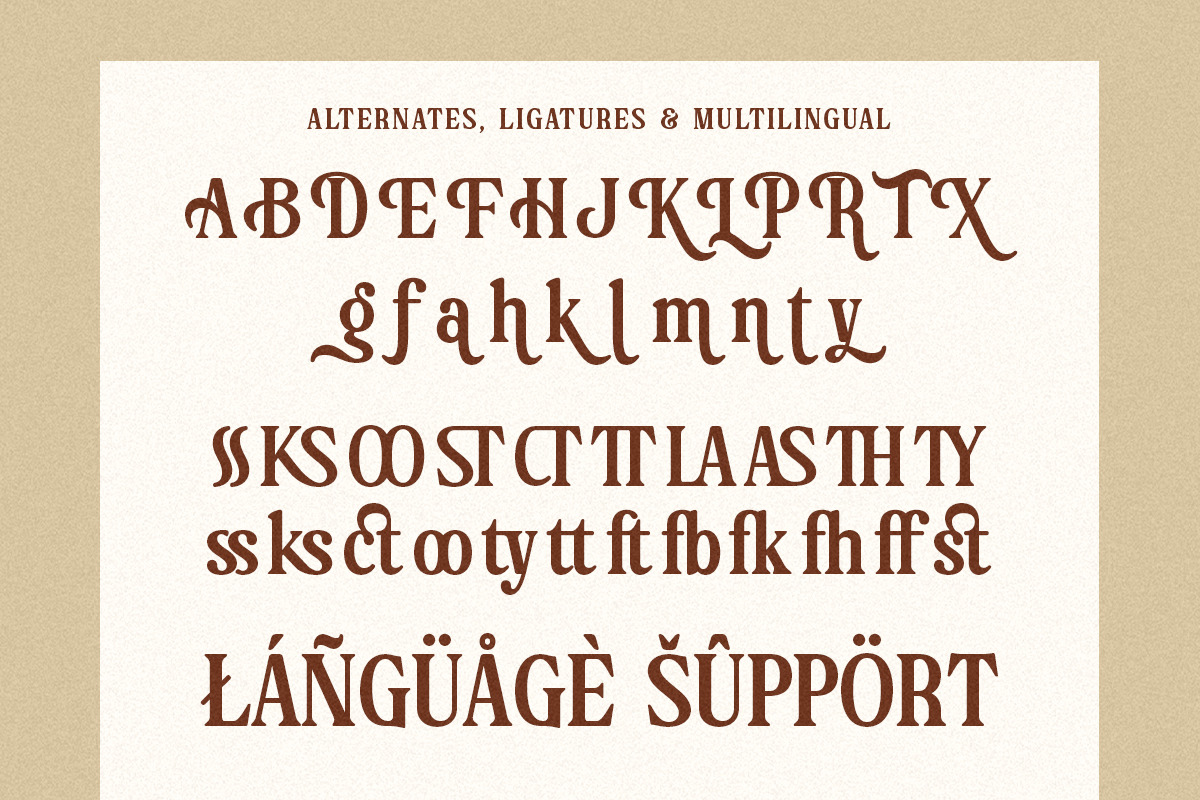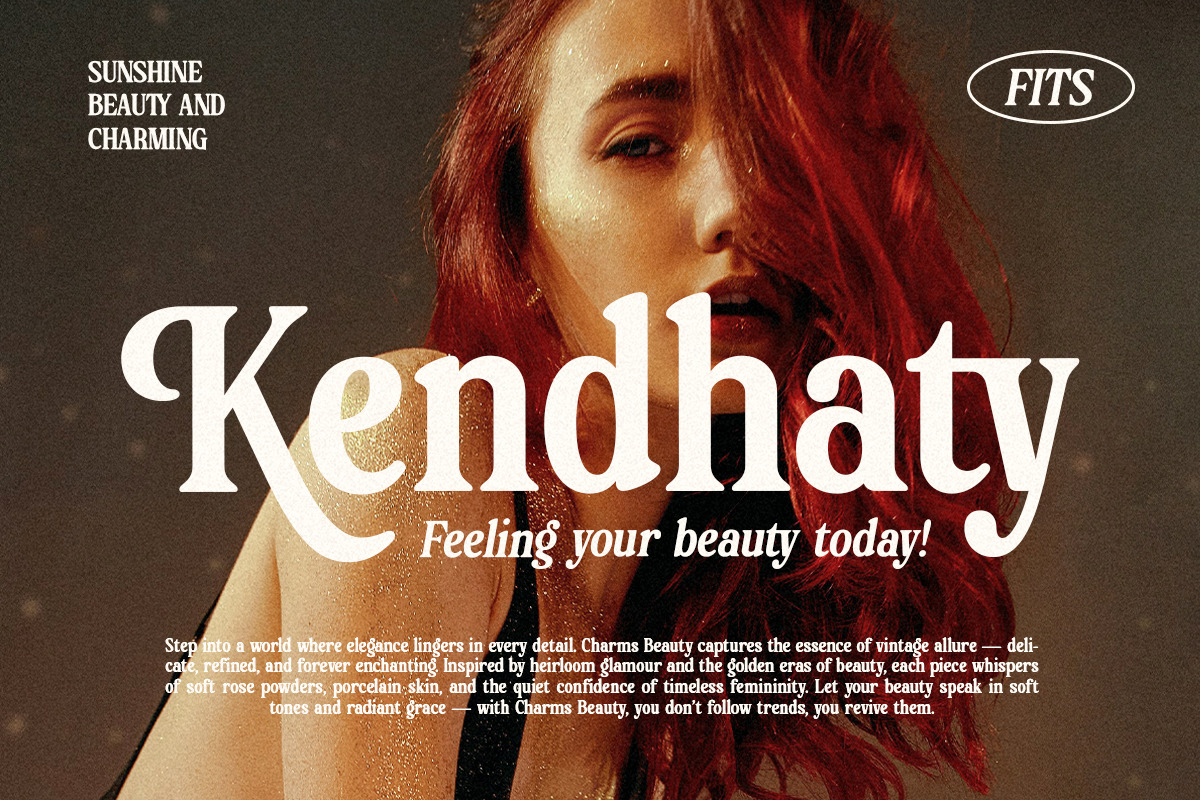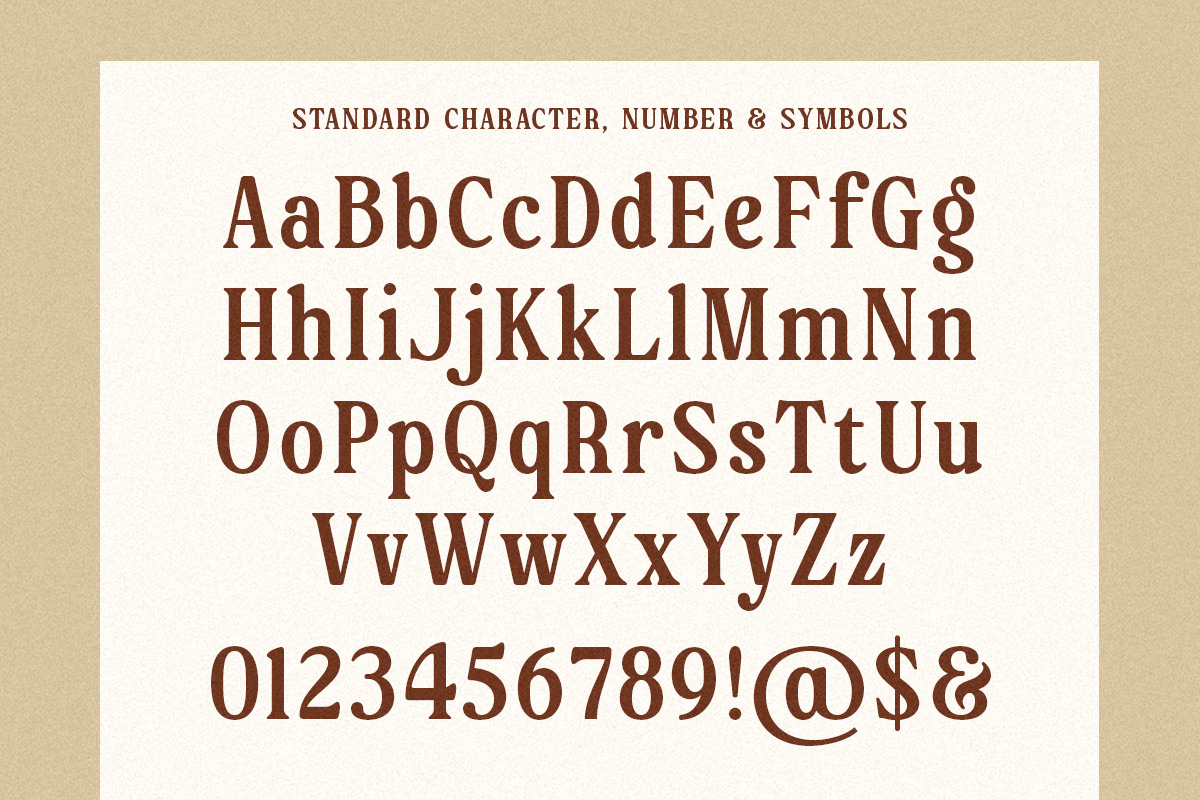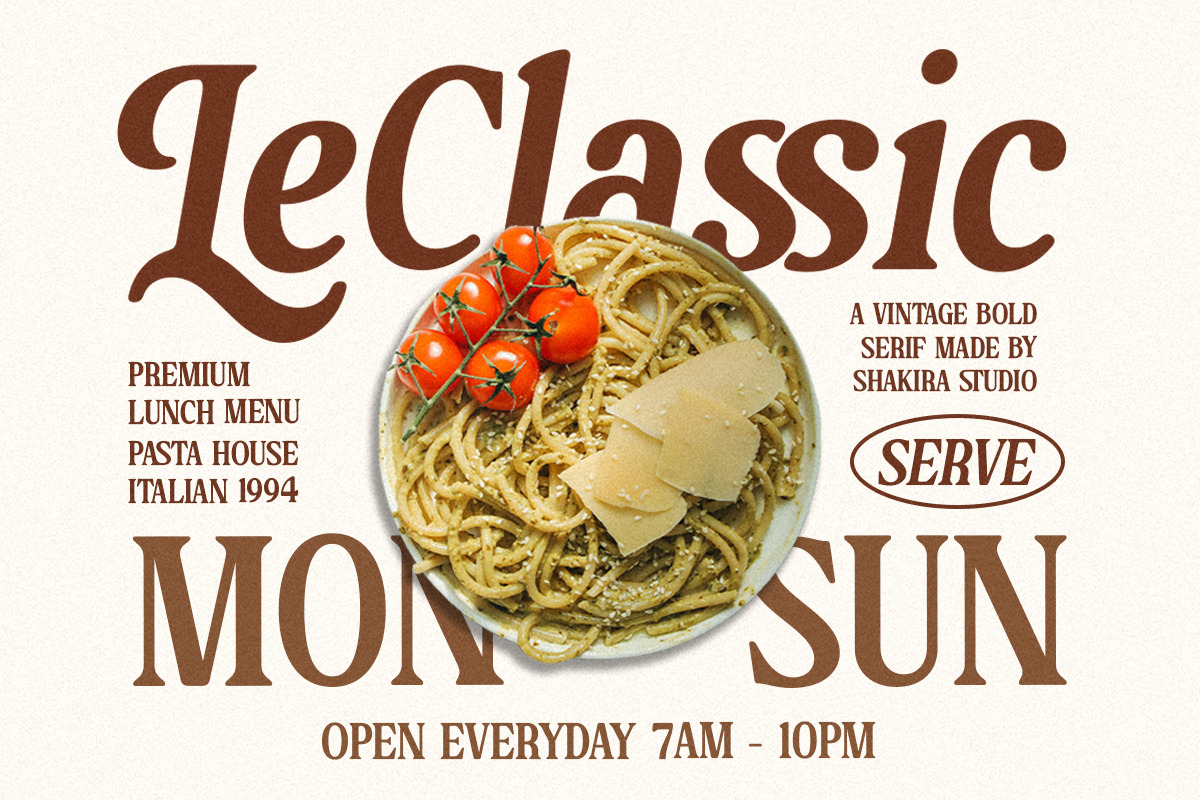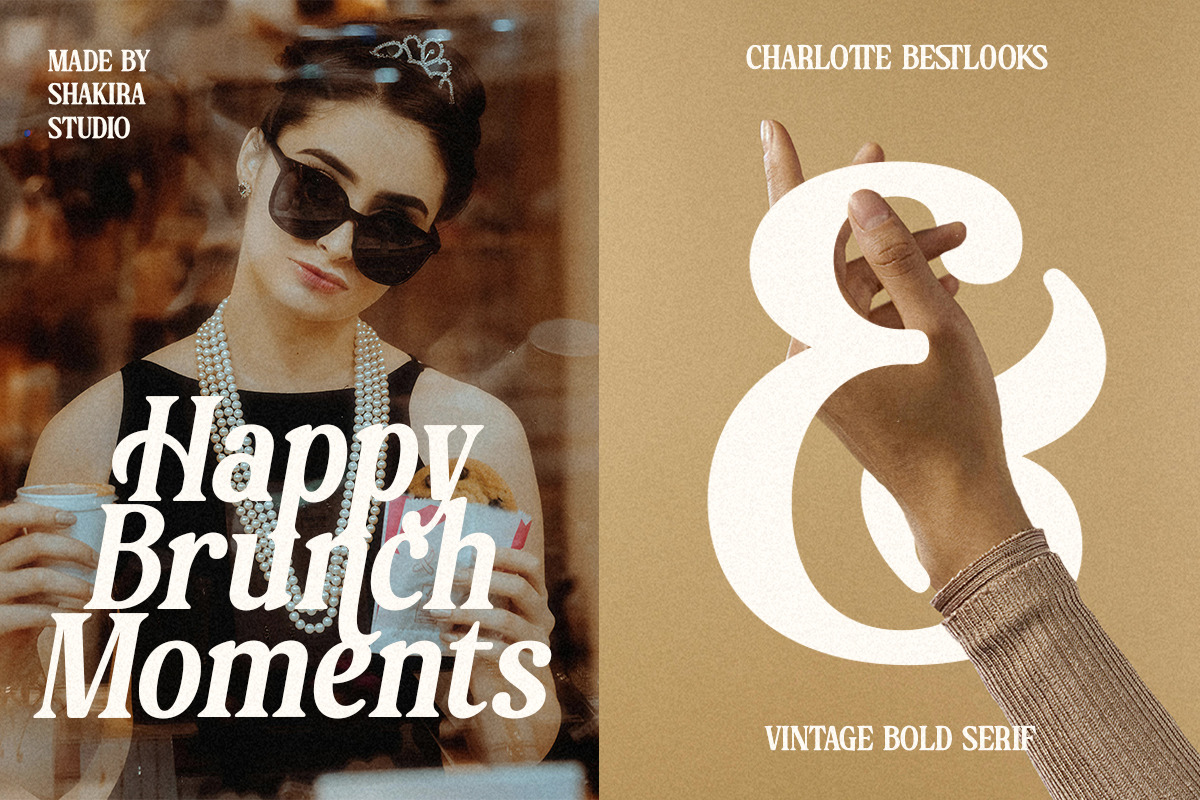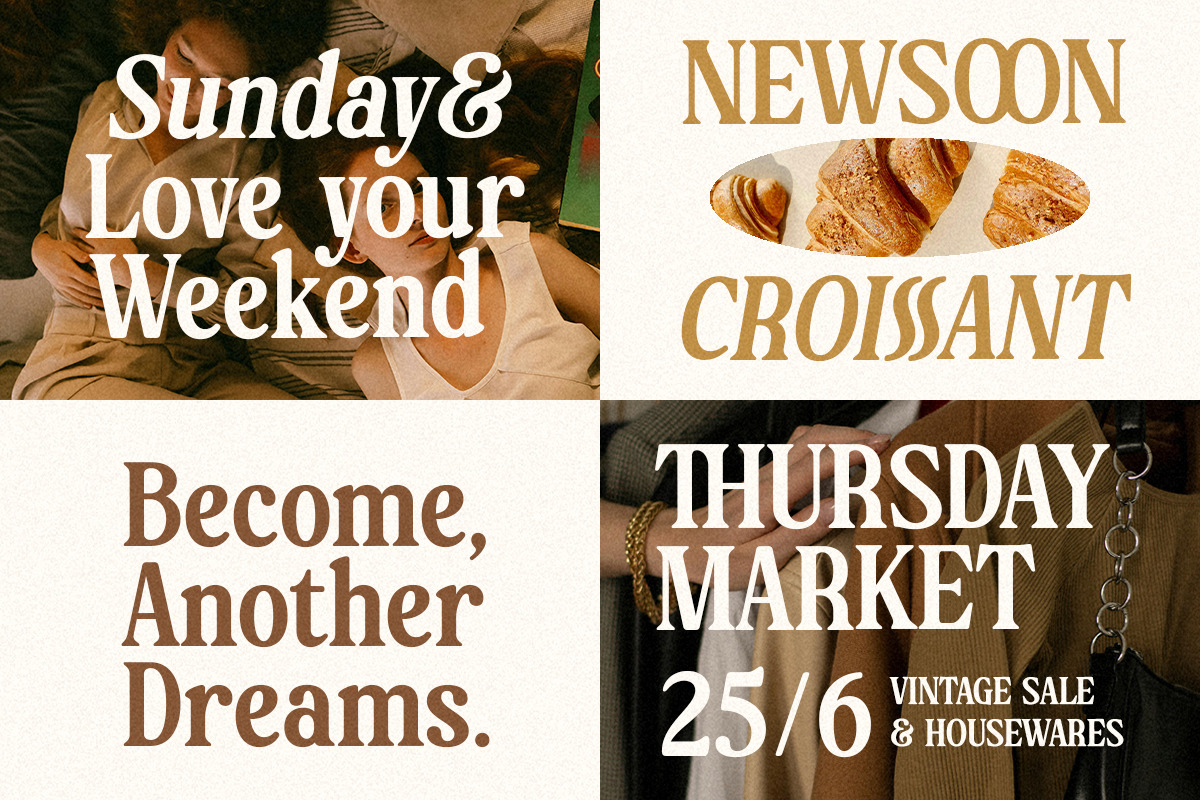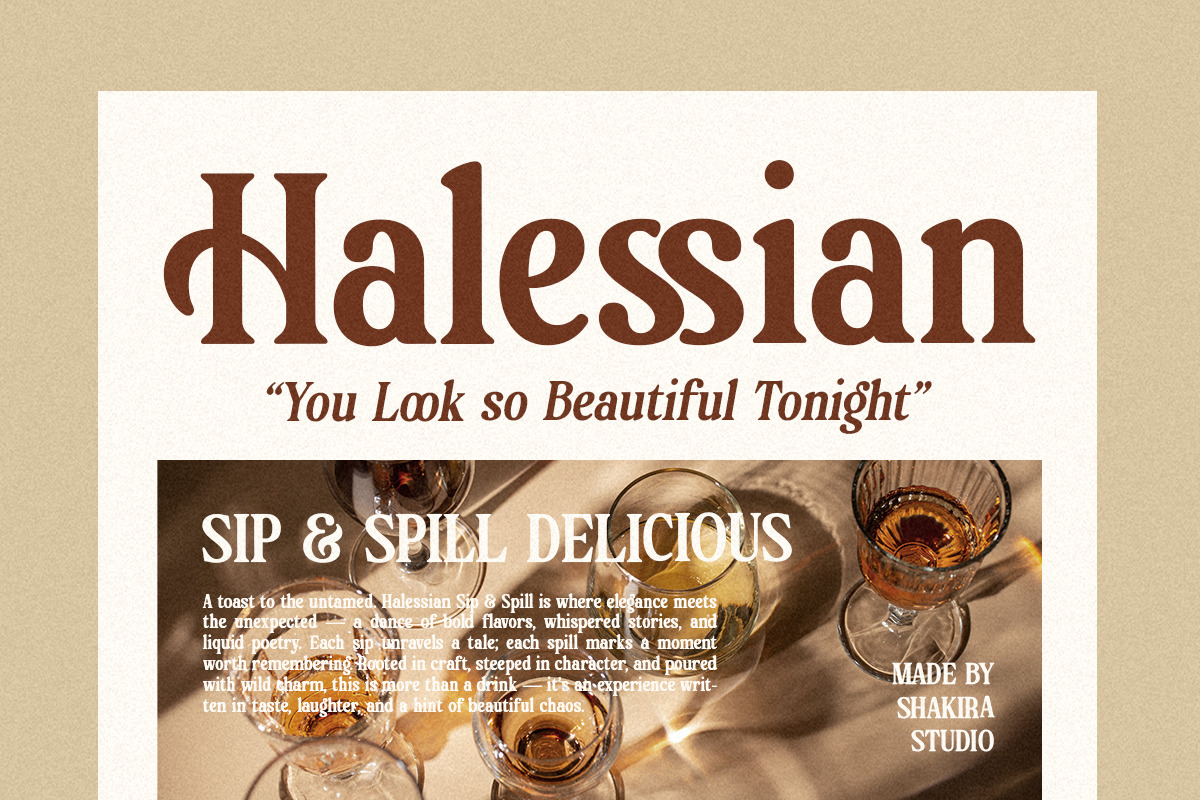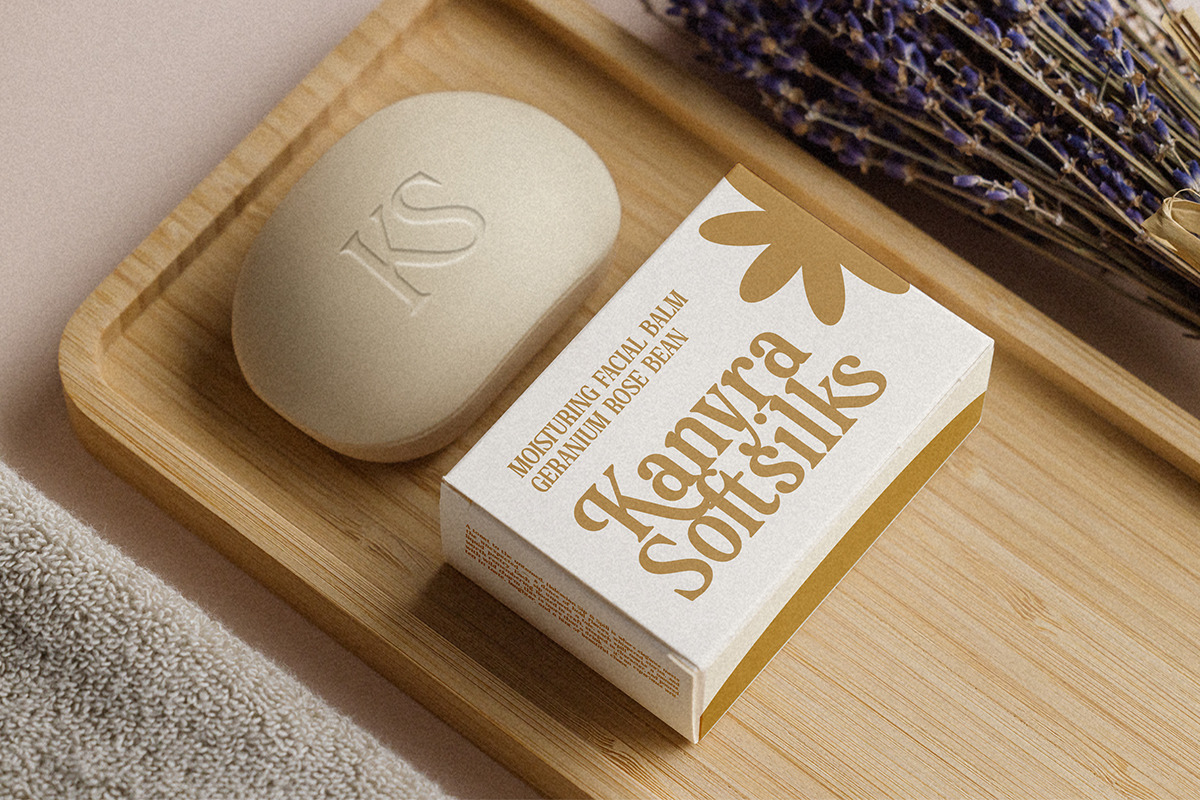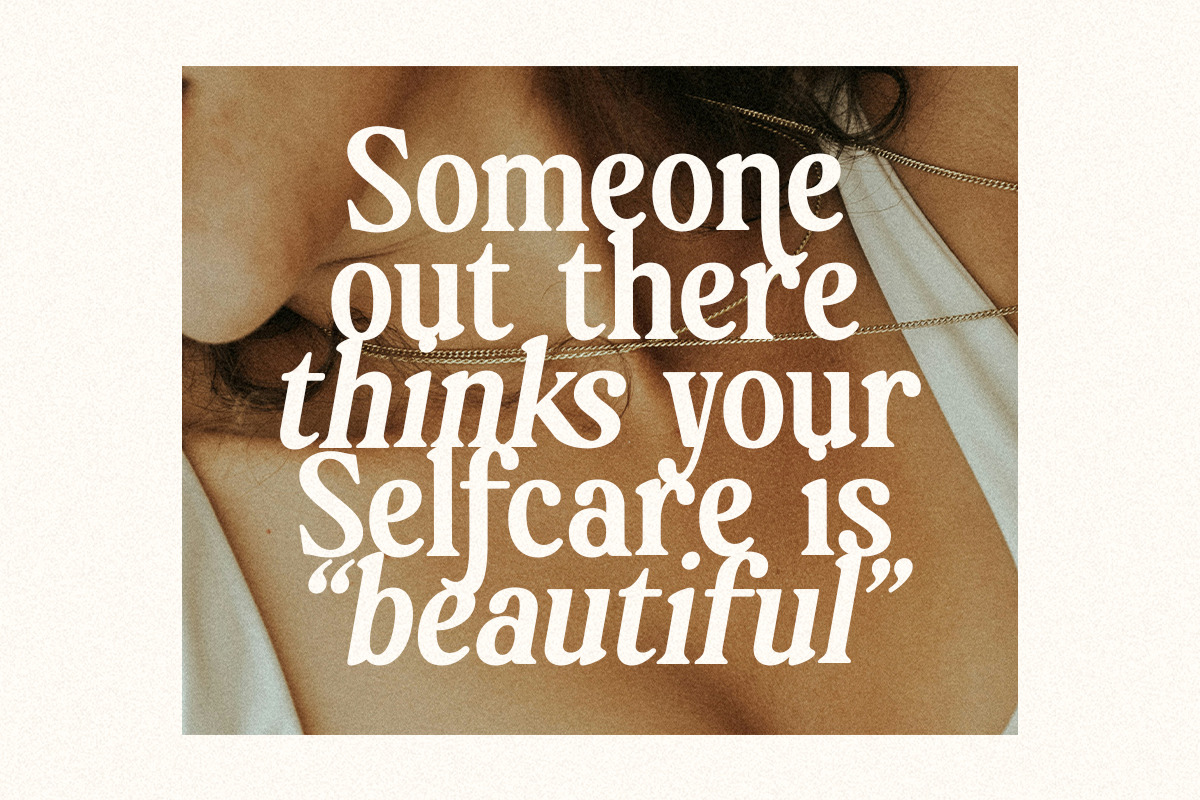
Charlotte Bestlooks – Vintage Serif
Charlotte Bestlooks is a bold vintage serif font crafted with elegance, confidence, and timeless retro charm.
Designed to capture the sophistication of classic editorial typography, this typeface blends bold serifs with refined alternates and ligatures, perfect for magazine covers, luxury branding, vintage posters, packaging, and fashion identity.
Bring back the golden era of vintage elegance with Charlotte Bestlooks.
- Regular & Italic
- Bold retro serif typeface
- Vintage-inspired details
- Alternates & ligatures included
- Vintage posters & headlines
- Magazine & editorial design
- Bold branding & packaging
- Fashion logos & identity
- Retro advertising & signage
- Event titles & display text
A font with bold presence and timeless sophistication.